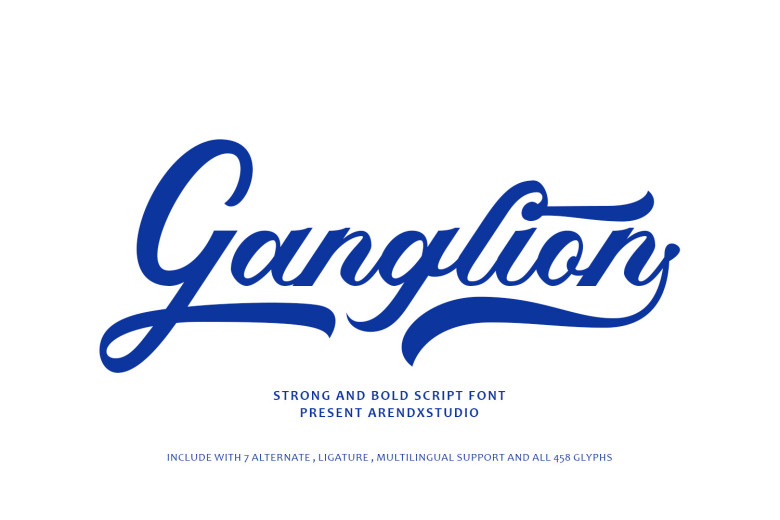
Ganglion Font
Ganglion font stands out for its distinctive style, featuring strong letters that exude power and energy – perfect for creating powerful headlines or logos for advertising materials that exude confidence and authority! An essential choice that unifies every piece of work beautifully!
Ganglion Bold Script Font